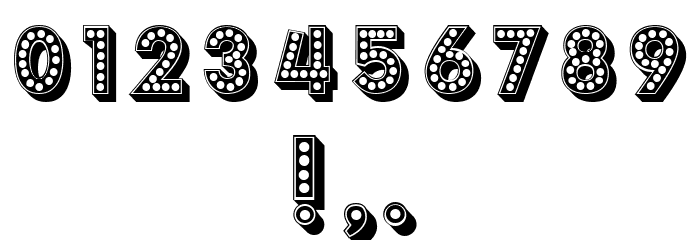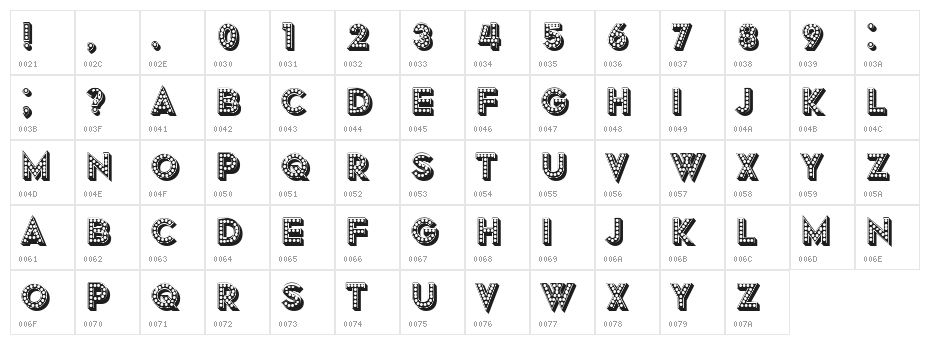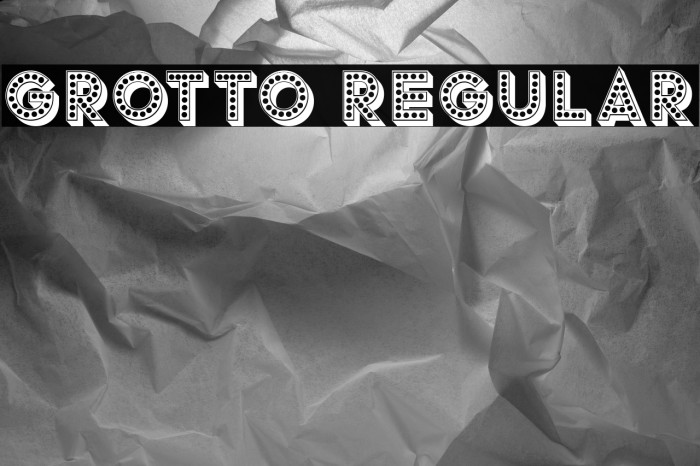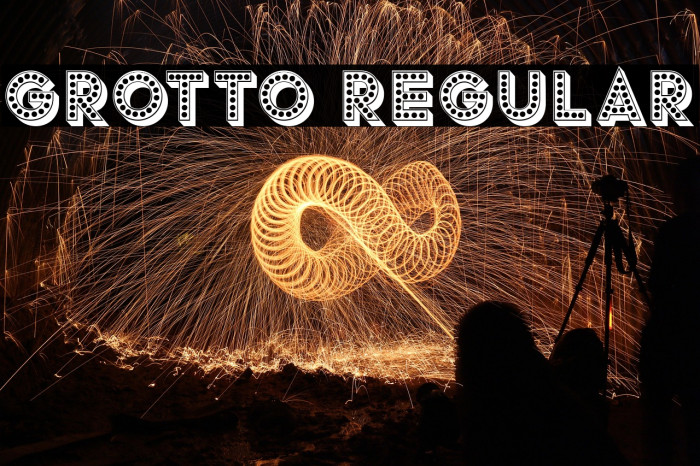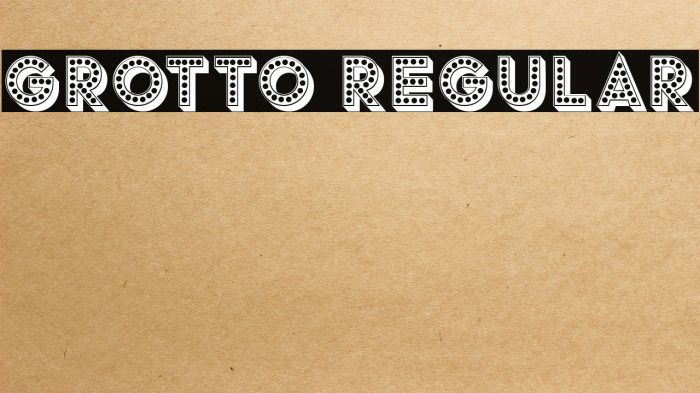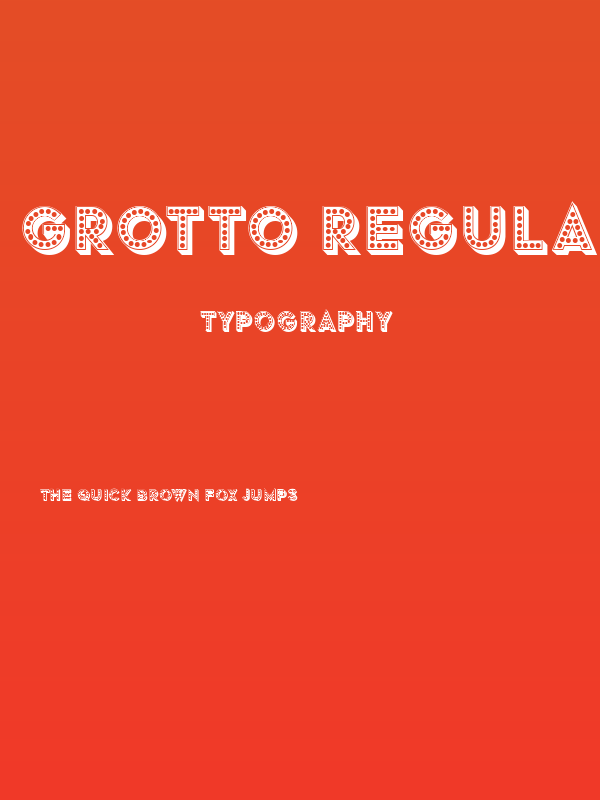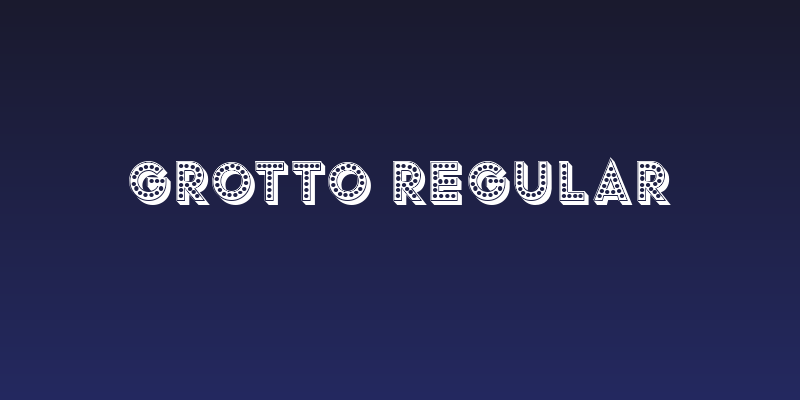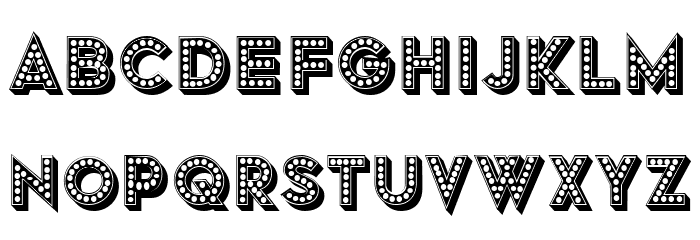
Grotto Regular Font
Grotto Regular Description
This font features a bold and decorative style with a three-dimensional effect, reminiscent of marquee lights. Each character is adorned with circular dots that mimic light bulbs, giving it a theatrical and eye-catching appearance. The letters are uppercase and have a strong, geometric structure with sharp angles and clean lines. The numbers and special characters maintain the same bold and illuminated style, ensuring consistency across all glyphs. This font is ideal for designs that require a vintage or retro aesthetic, particularly those related to entertainment or events.